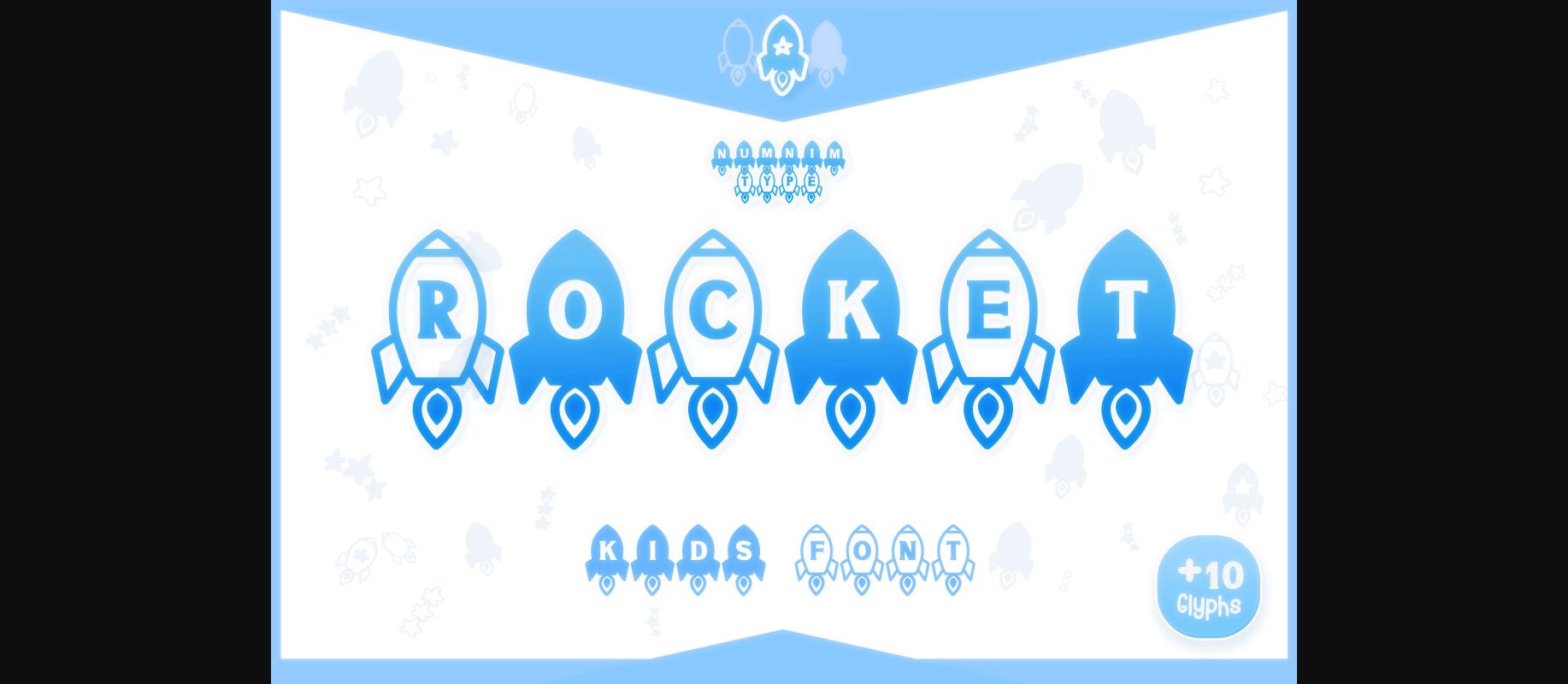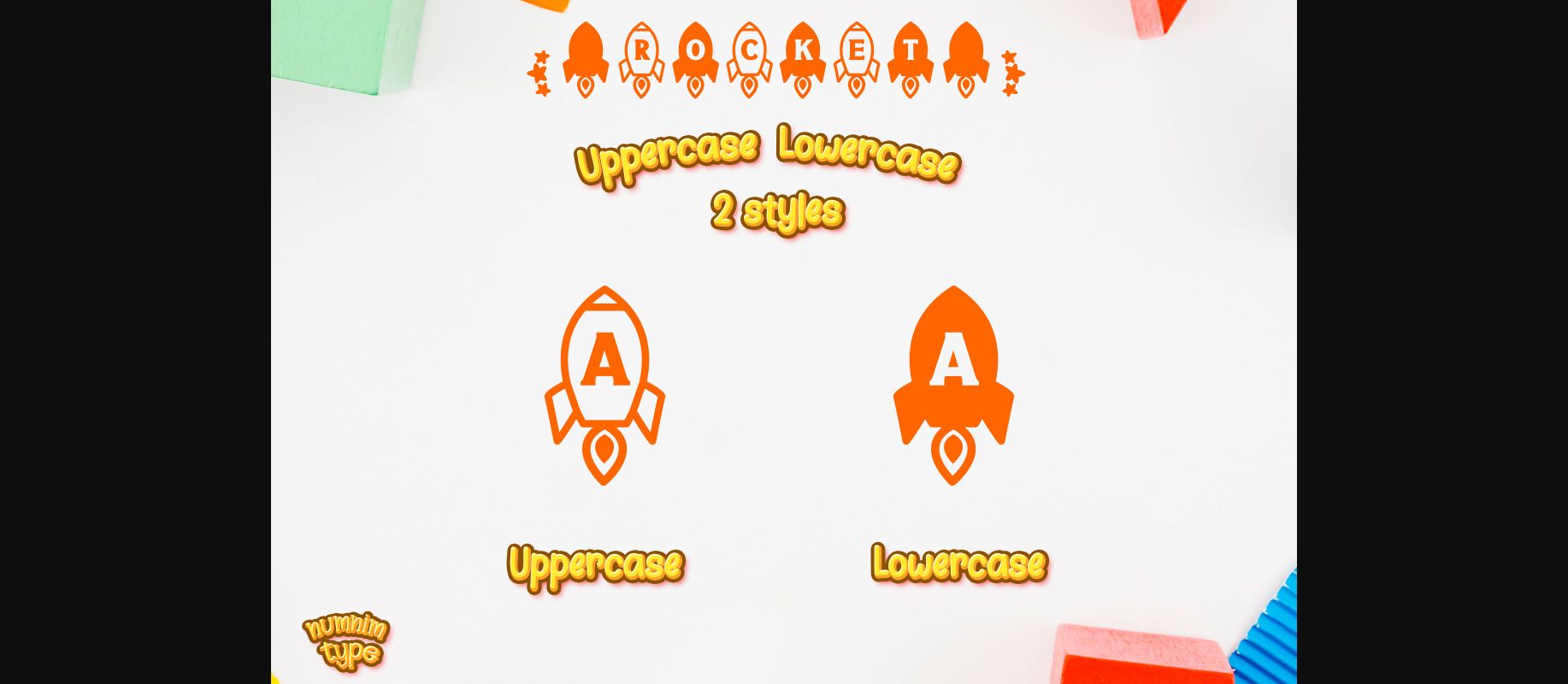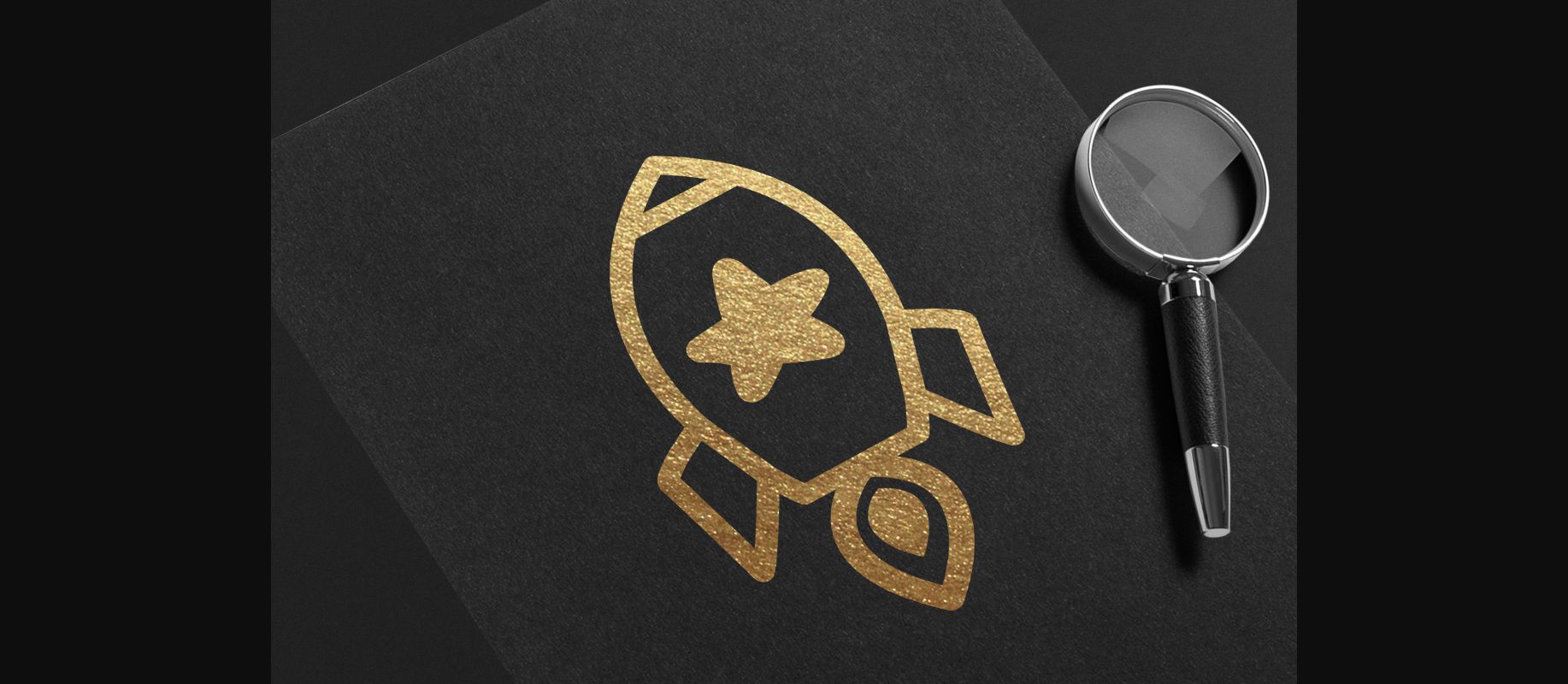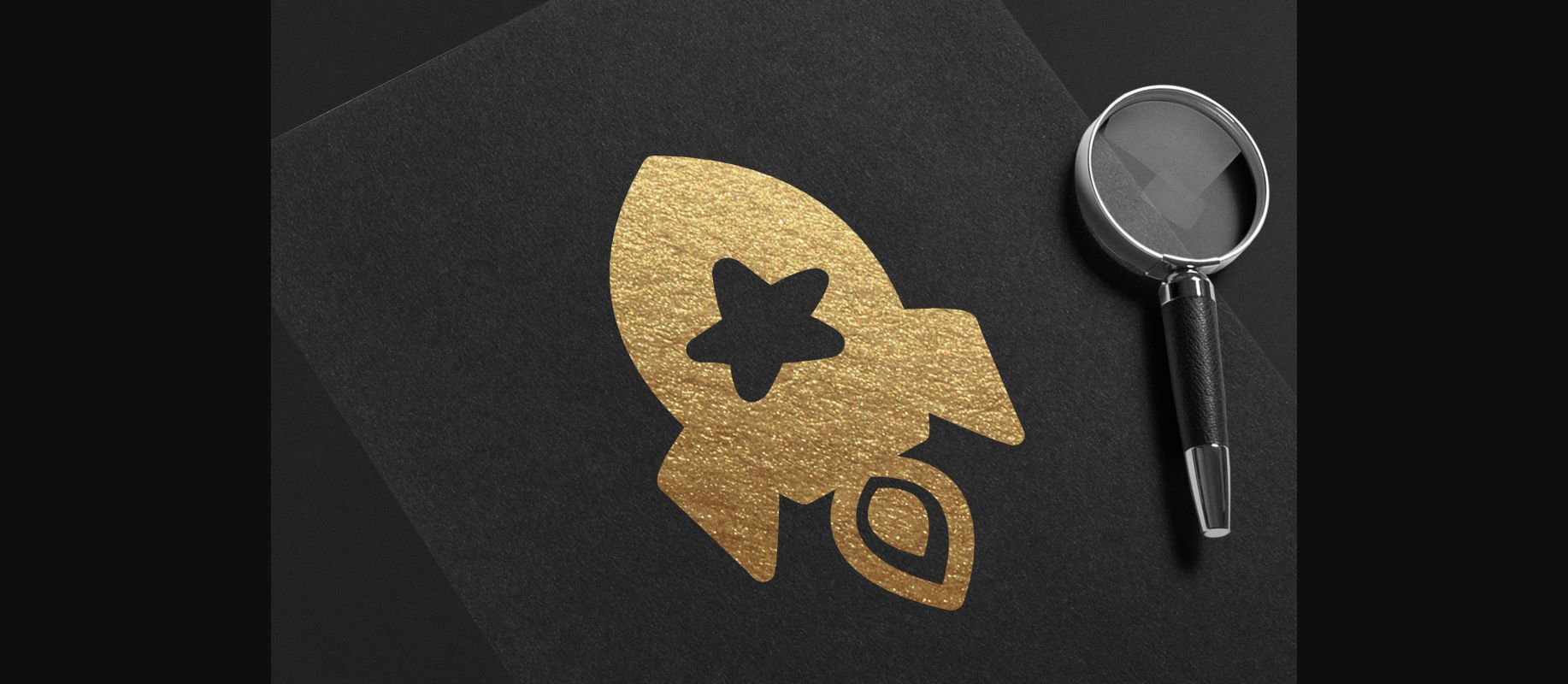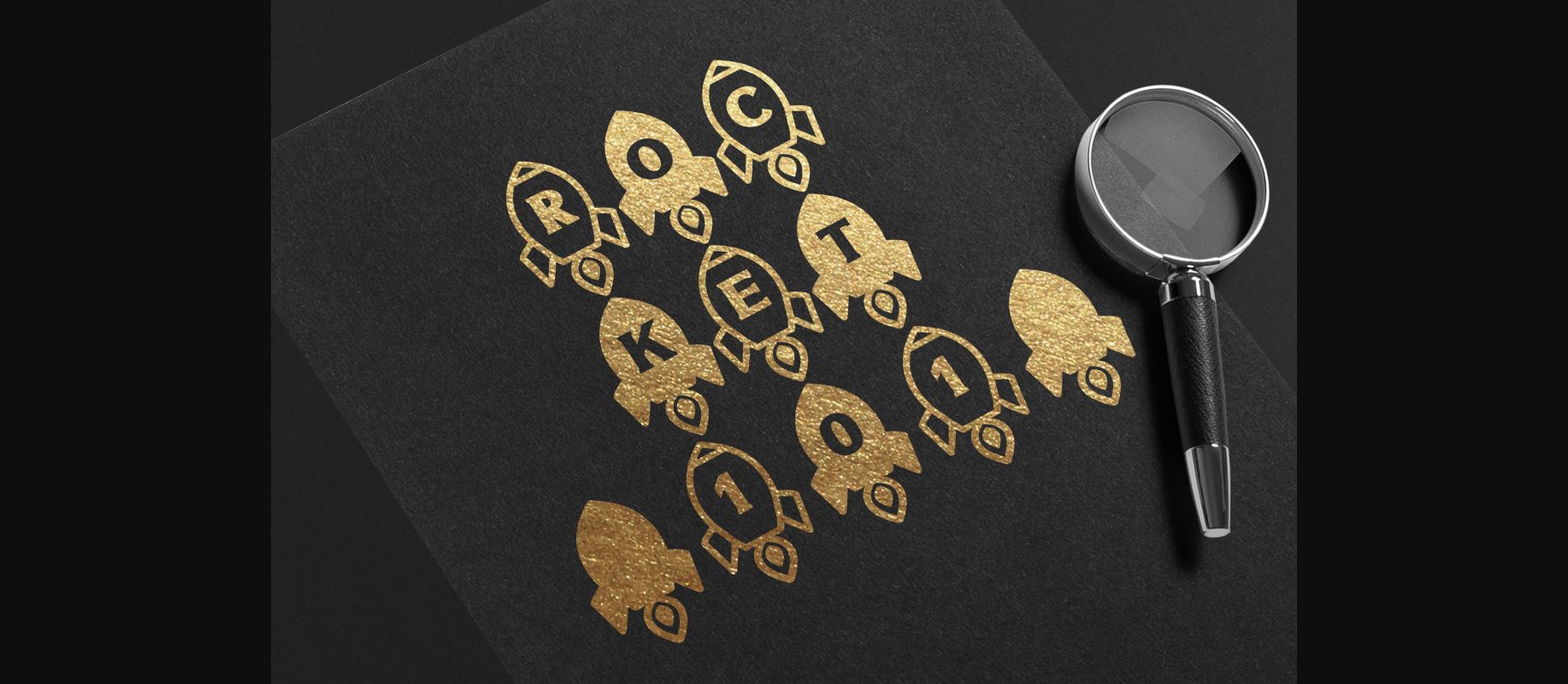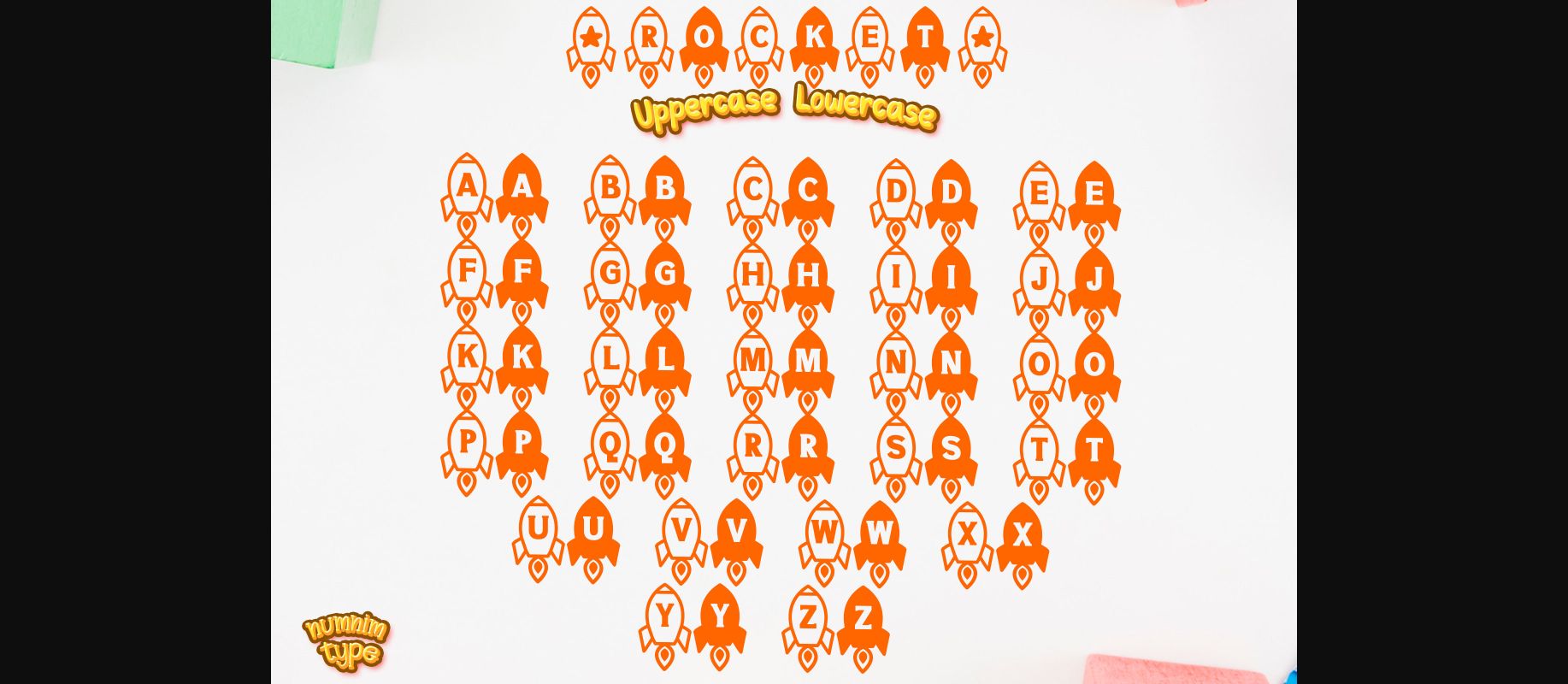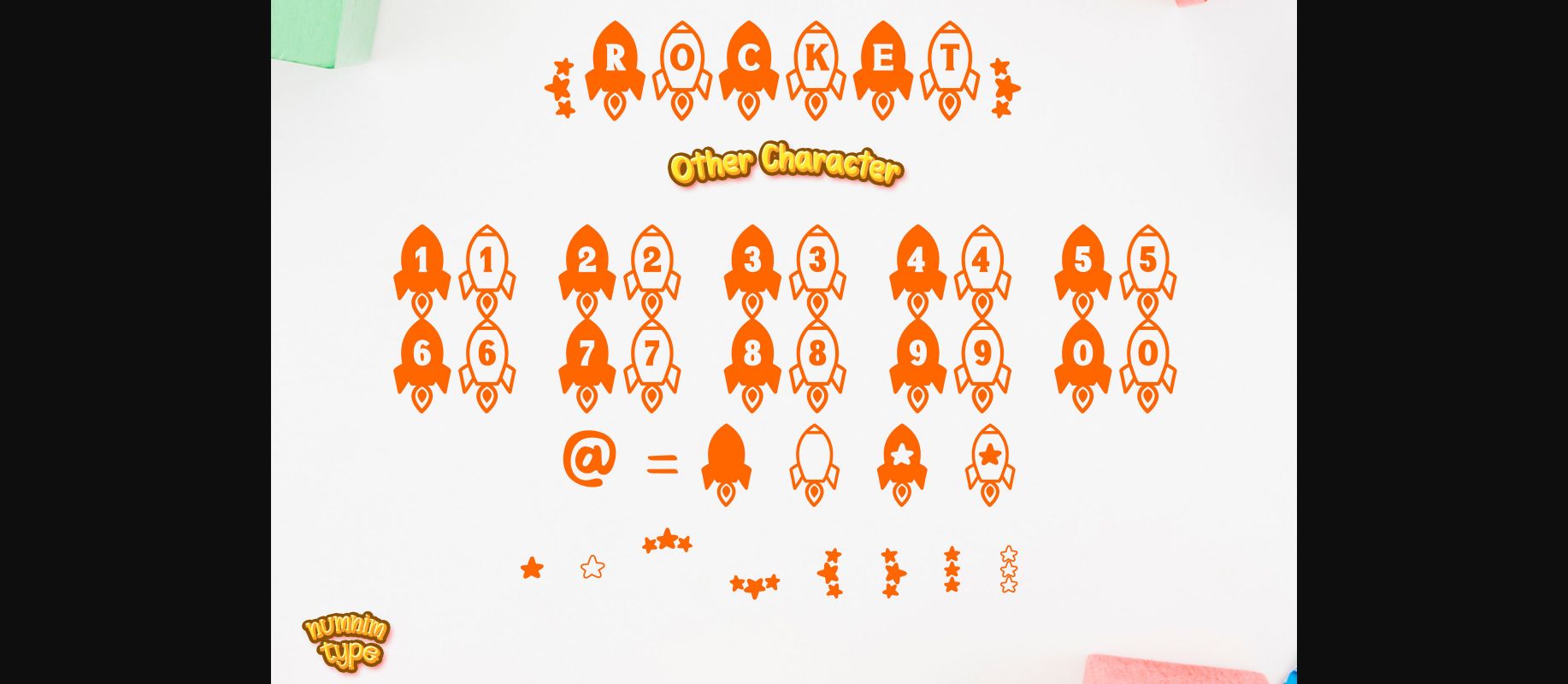
Rocket Font
About Rocket Font
Rocket is a cool and uniquely designed children decorative font. Each character is cute and playful, perfect for adding a bold accent to your designs! This font is PUA encoded which means you can access all of the glyphs and swashes with ease!